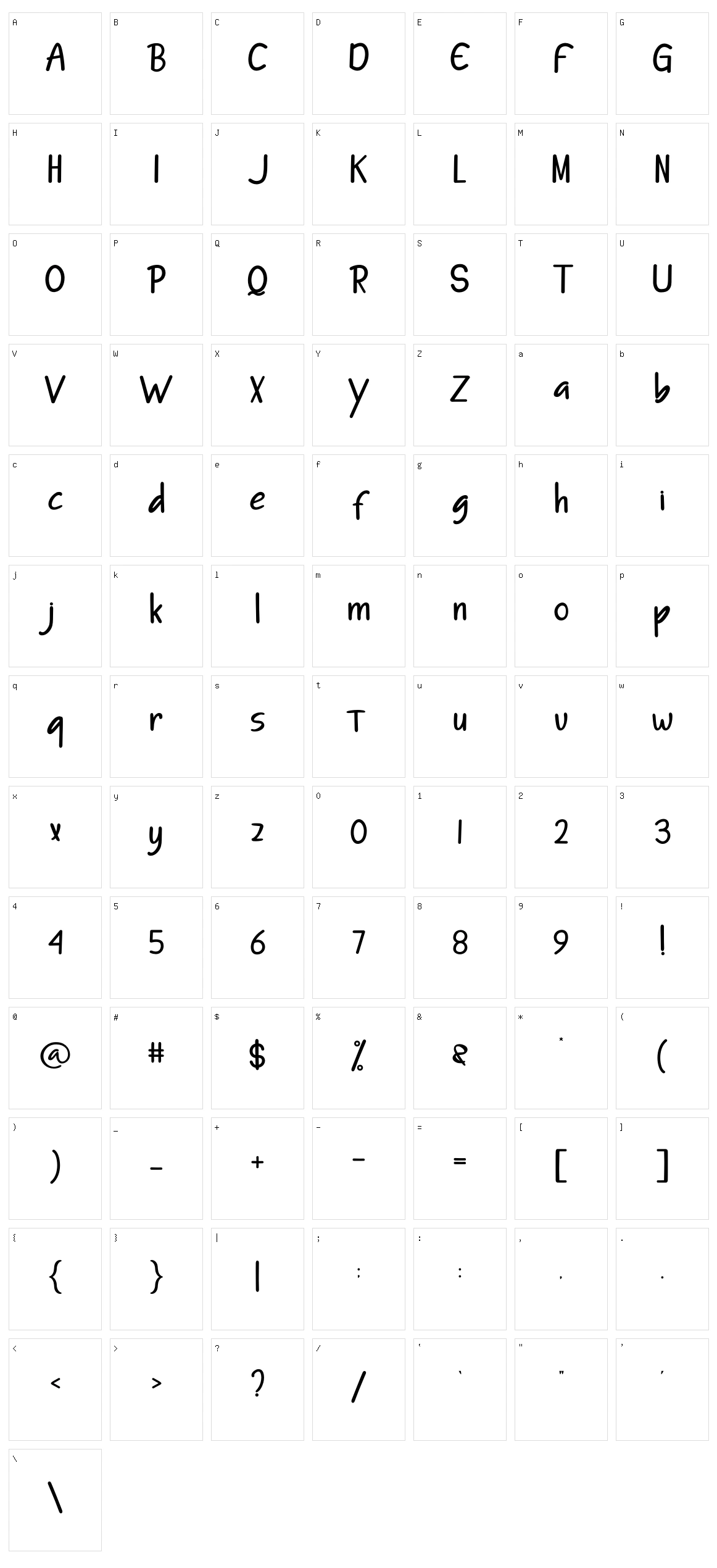
The free font Dissert is carefully designed by Skiiller Studio, showcasing a thoughtful balance of creativity and usability and falls under the Script font style. When you download the ZIP file, it contains only 22.92 KB of font files, making it lightweight and quick to download. Please review the license details below to understand permitted usage and distribution rights. If license information is not available, we recommend using this font for personal projects only or contacting the author directly for commercial usage permissions.